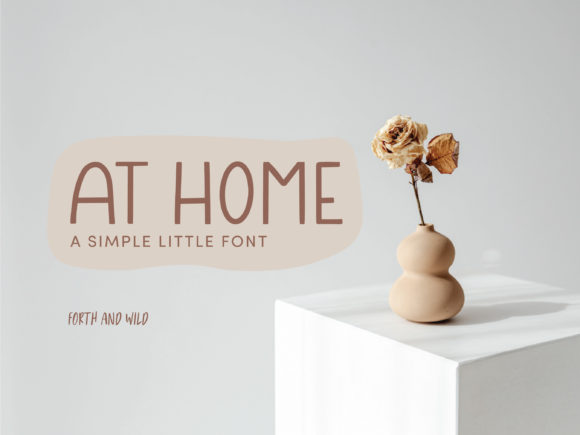
The Joy of At Home Font: A Designer’s New Best Friend
I still remember the design project that led me to discover the At Home font. I was working on a children’s book cover, and I needed a font that was playful, yet clean and simple. I had tried several fonts, but none of them seemed to fit the bill. That was when I stumbled upon At Home, and it instantly became my go-to choice. In this article, I’ll share my experience with At Home font, its features, and how to make the most of it in your designs.
An Honest Review of At Home Font
What I Love About At Home Font ✨
- ✅ Clean and simple design that’s perfect for a variety of projects
- ✅ Handwritten feel that adds a touch of warmth and personality
- ✅ Versatile and can be used for both digital and print projects
- ⚠️ Limited character set, which may not be suitable for projects that require a wide range of languages or special characters
- ⚠️ May not be the best choice for very formal or professional projects, as it has a playful feel
The Story Behind At Home Font
The At Home font was designed with the intention of creating a clean, simple, and playful handwritten font that’s perfect for a variety of projects. The designer aimed to create a font that’s both elegant and approachable, making it suitable for both digital and print projects.
Q: What type of projects is At Home font best suited for?
A: At Home font is perfect for projects that require a touch of playfulness and personality, such as children’s book covers, cartoon-related designs, and creative quotes.
Q: Is At Home font available in different languages?
A: The character set of At Home font may be limited, so it’s best to check with the font designer or a trusted font source to see if it’s available in the language you need.